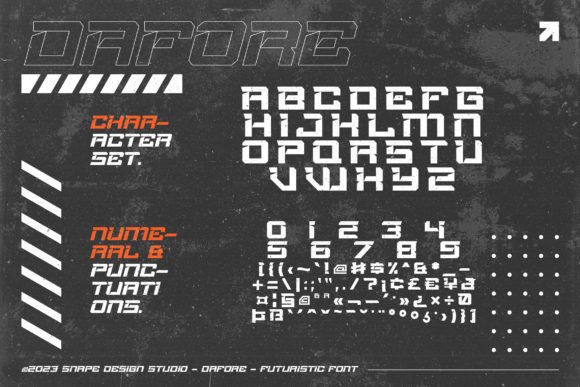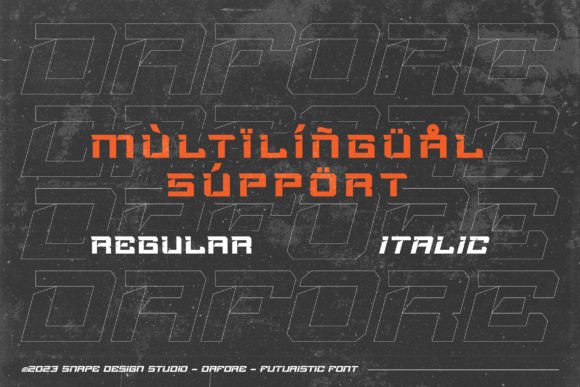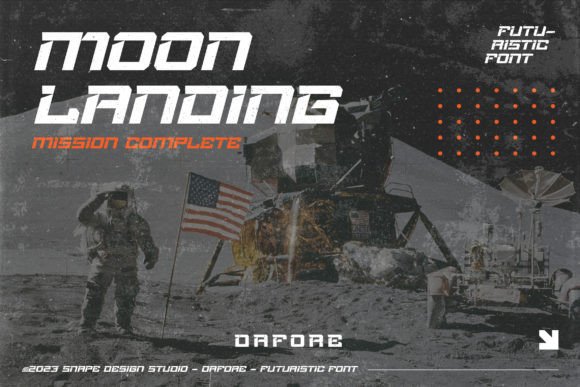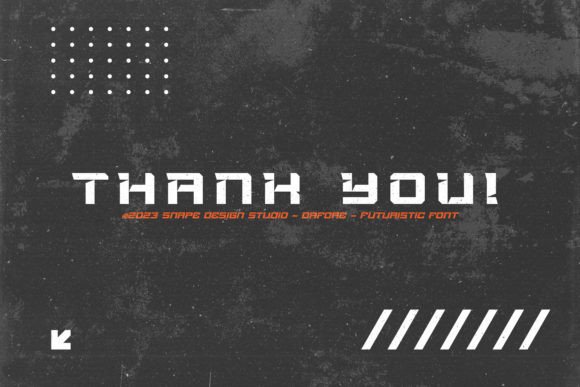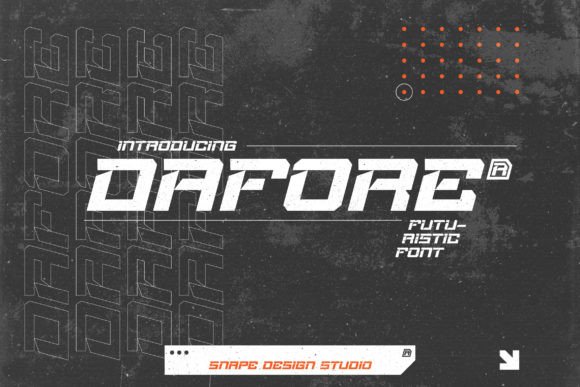
Introducing Dafore Font: The Ultimate Futuristic Display Font
In the world of design, fonts play a crucial role in conveying the message and tone of a project. When it comes to creating futuristic designs, a bold and attention-grabbing font is essential. This is where Dafore Font comes in – a cool, futuristic display font designed to add a vibrant touch to your designs. In this article, we’ll explore the features and benefits of Dafore Font, and why it’s the perfect choice for designers and crafters looking to take their projects to the next level.
The Design of Dafore Font
Dafore Font is a meticulously crafted font, designed to draw attention and highlight any project that requires a bold feel. Its futuristic design makes it perfect for projects that require a cutting-edge look, such as tech startups, sci-fi movies, or video games. The font’s sleek and modern aesthetic is sure to impress, with clean lines, sharp edges, and a dynamic flow.
Key Features of Dafore Font
- Bold and Attention-Grabbing: Dafore Font is designed to stand out from the crowd, making it perfect for headlines, titles, and other display text.
- Futuristic Design: The font’s futuristic aesthetic makes it ideal for projects that require a modern and cutting-edge look.
- Highly Versatile: Dafore Font can be used for a wide range of projects, from digital designs to print materials.
- Easily Readable: Despite its bold design, Dafore Font is surprisingly easy to read, making it perfect for body text as well as display text.
Benefits of Using Dafore Font
So why choose Dafore Font for your next project? Here are just a few benefits of using this amazing font:
- Adds a Professional Touch: Dafore Font is designed to look professional and polished, making it perfect for projects that require a high-end feel.
- Increases Visibility: The font’s bold design ensures that your message will be seen and heard, even in a crowded design landscape.
- Enhances Creativity: Dafore Font’s futuristic design inspires creativity and innovation, making it perfect for projects that require a fresh and modern approach.
How to Use Dafore Font
- Experiment with Different Sizes: Dafore Font looks great in a variety of sizes, from small body text to large display text.
- Play with Color: The font’s bold design looks great in a range of colors, from bright and bold to subtle and muted.
- Combine with Other Fonts: Dafore Font pairs well with a range of other fonts, making it easy to create a unique and visually appealing design.
In conclusion, Dafore Font is a powerful and versatile font that’s perfect for designers and crafters looking to add a bold and futuristic touch to their projects. With its sleek design, highly readable text, and endless uses, Dafore Font is sure to become a go-to font in your design arsenal. So why wait? Download Dafore Font today and take your designs to the next level!
- Is Dafore Font easy to read? Yes – despite its bold design, Dafore Font is surprisingly easy to read, making it perfect for body text as well as display text.